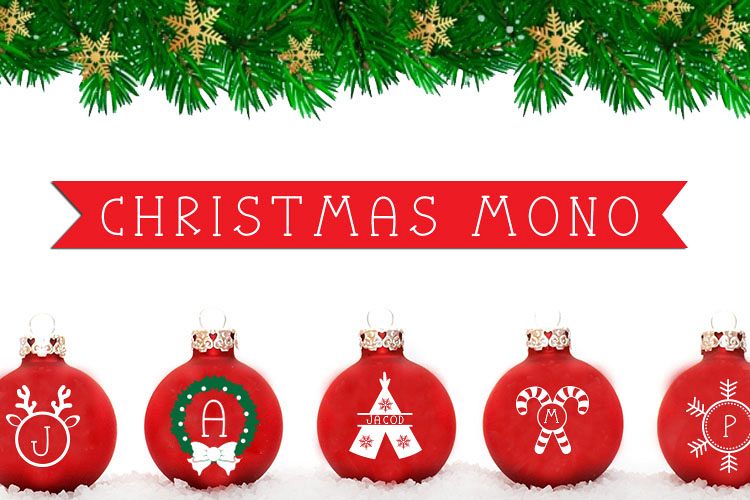
The Christmas Mono font is a beautiful font with serifs and frames of Christmas monograms. Perfect to decorate spheres for Christmas tree and customize beautiful gifts!
Christmas Mono comes with 9 different types of frames with the numbers 0-9 and an uppercase alphabet A-Z two minuscules as special character m n.
This is a unique and special source that can help you express the feeling of love for a loved one, in a time as beautiful and familiar as Christmas!